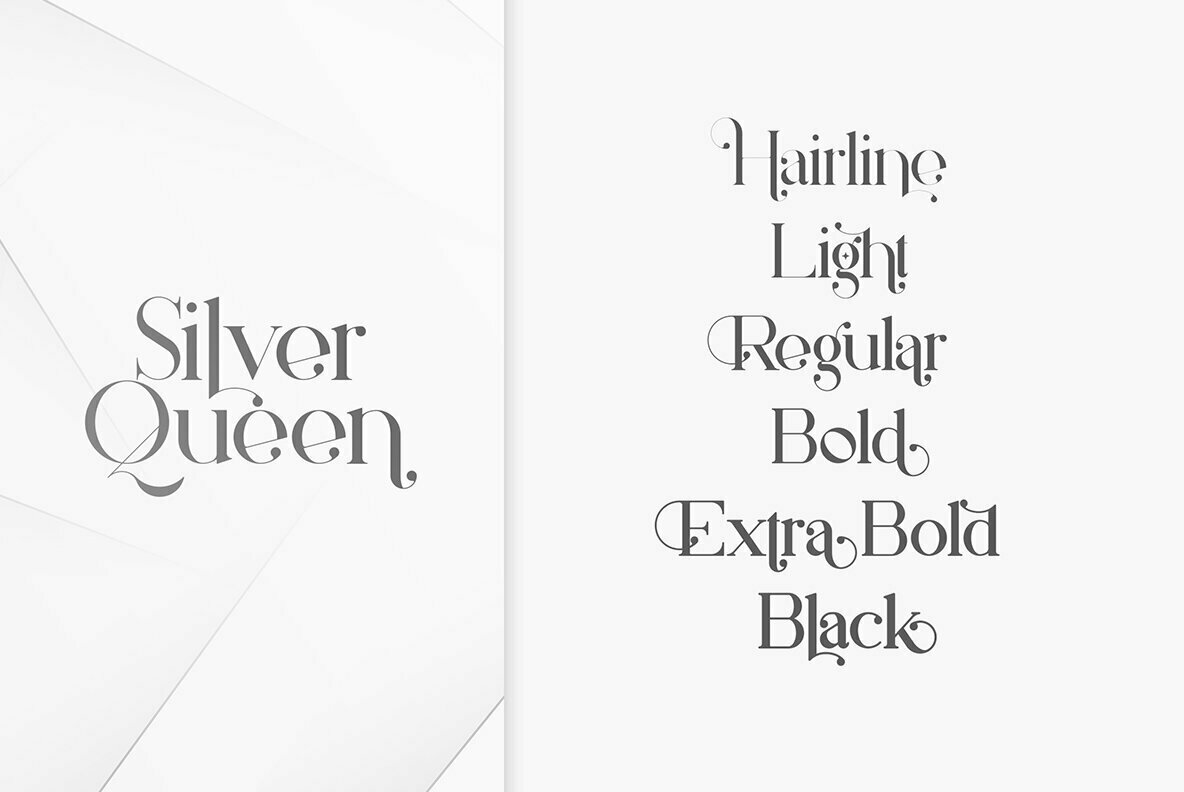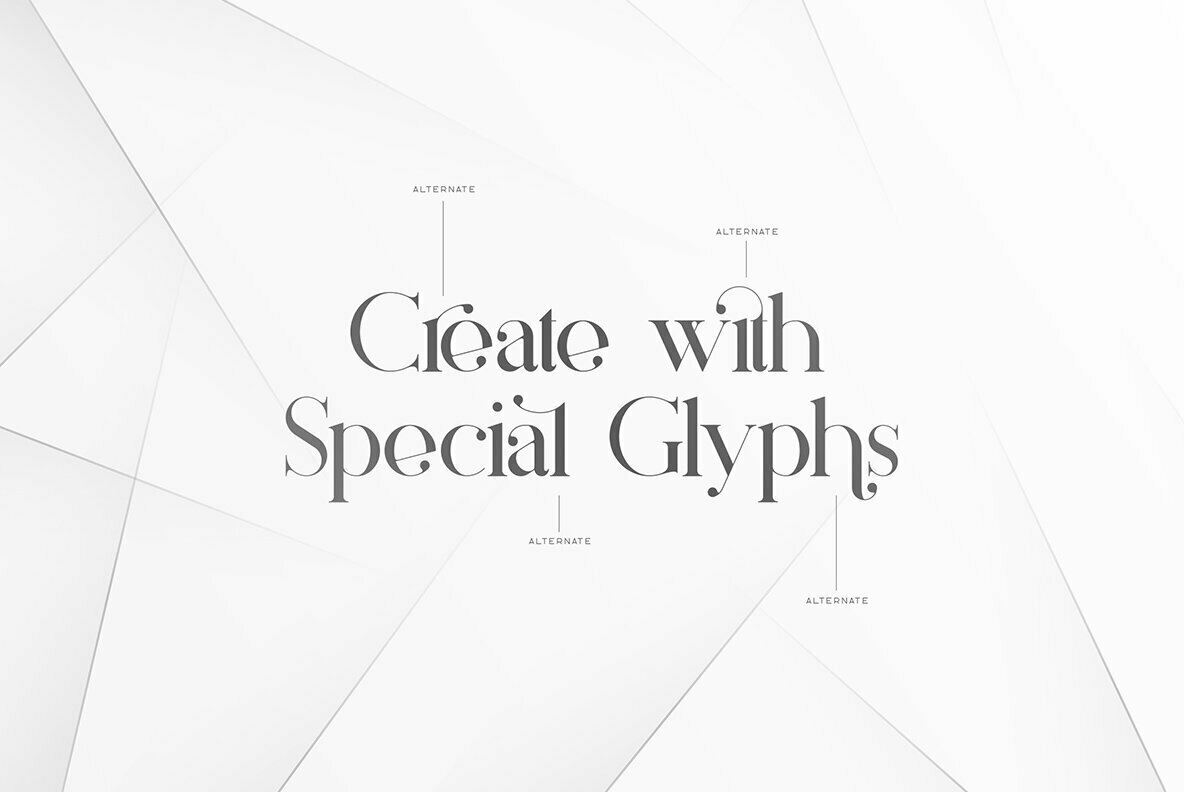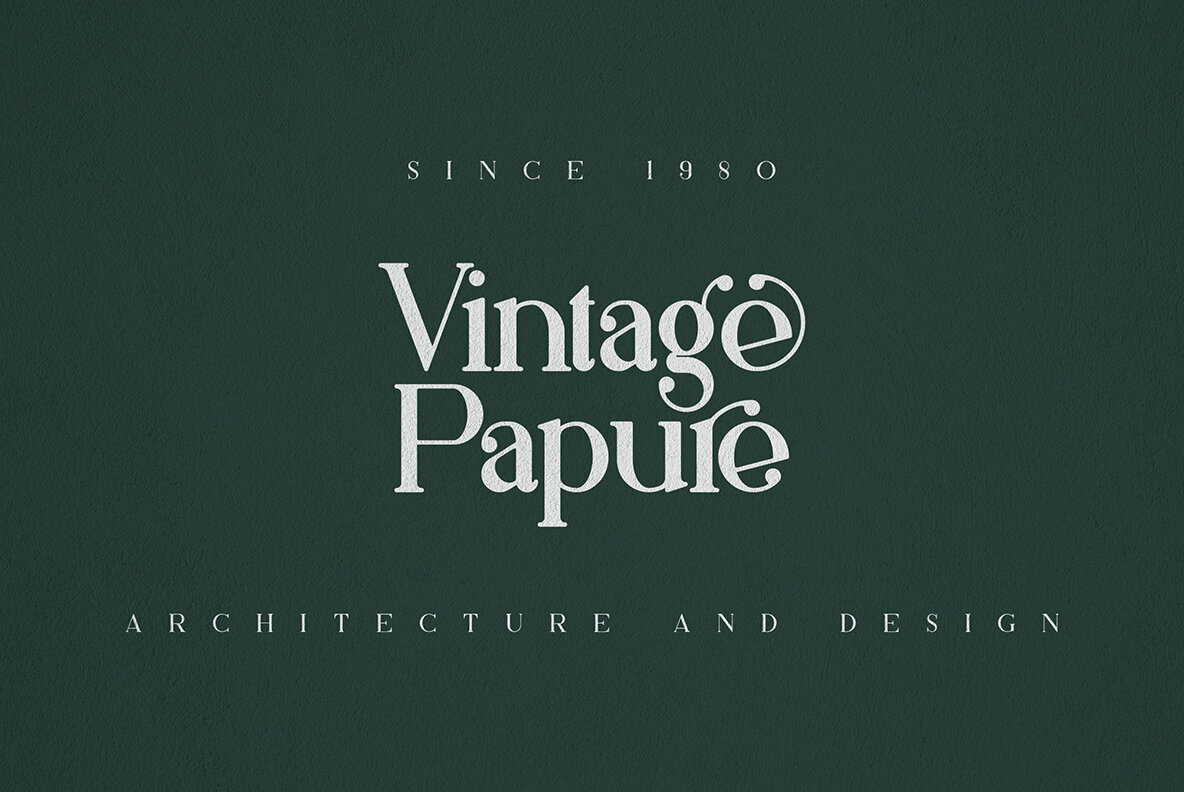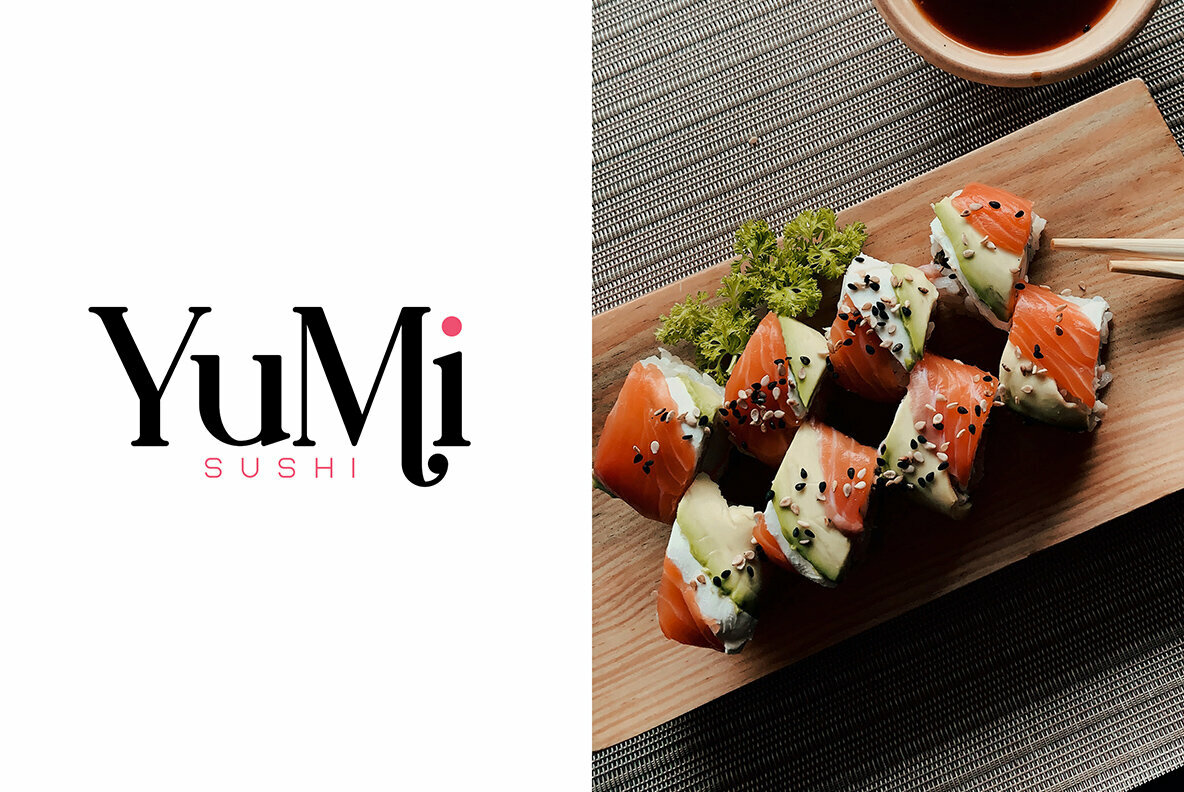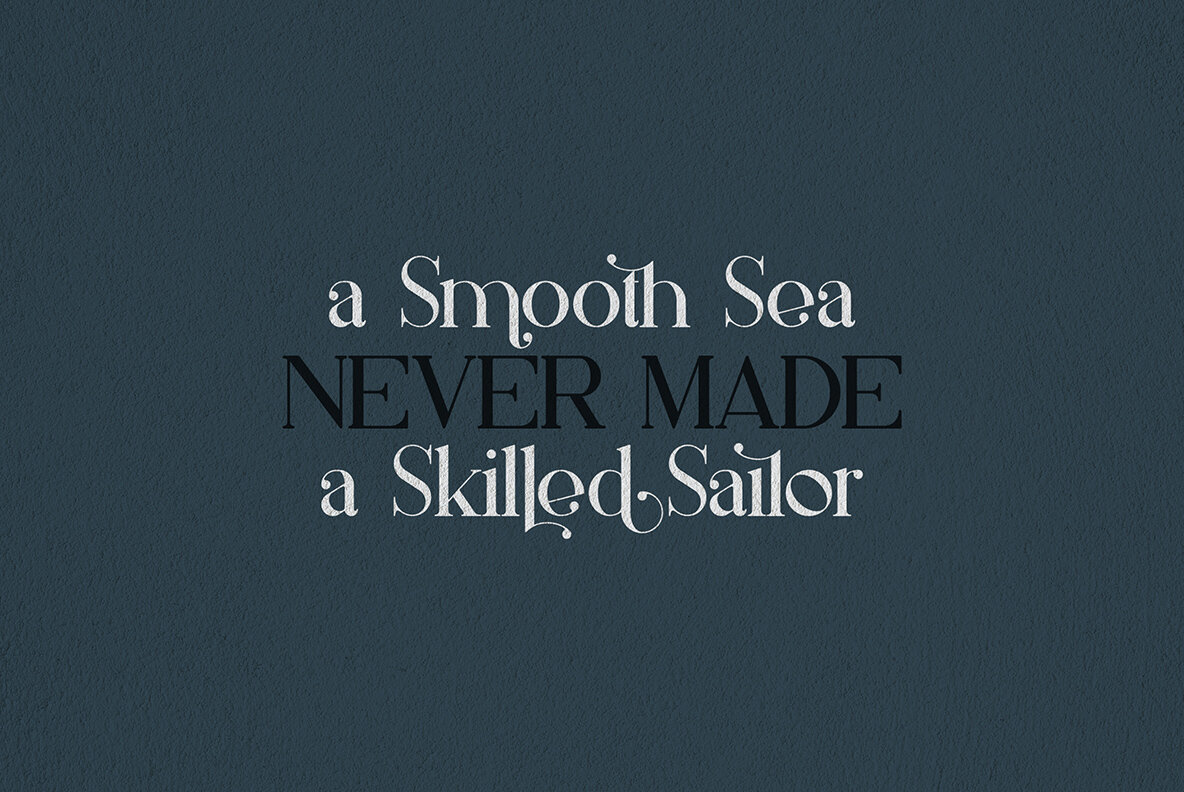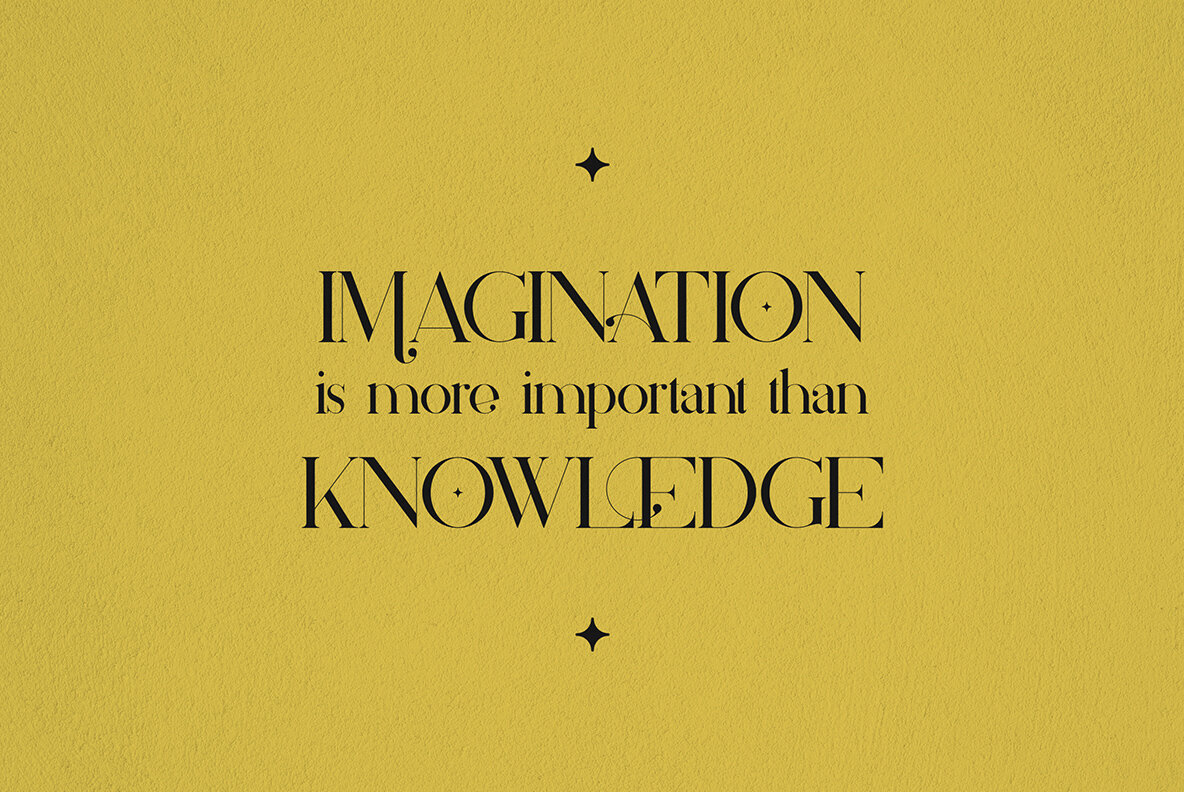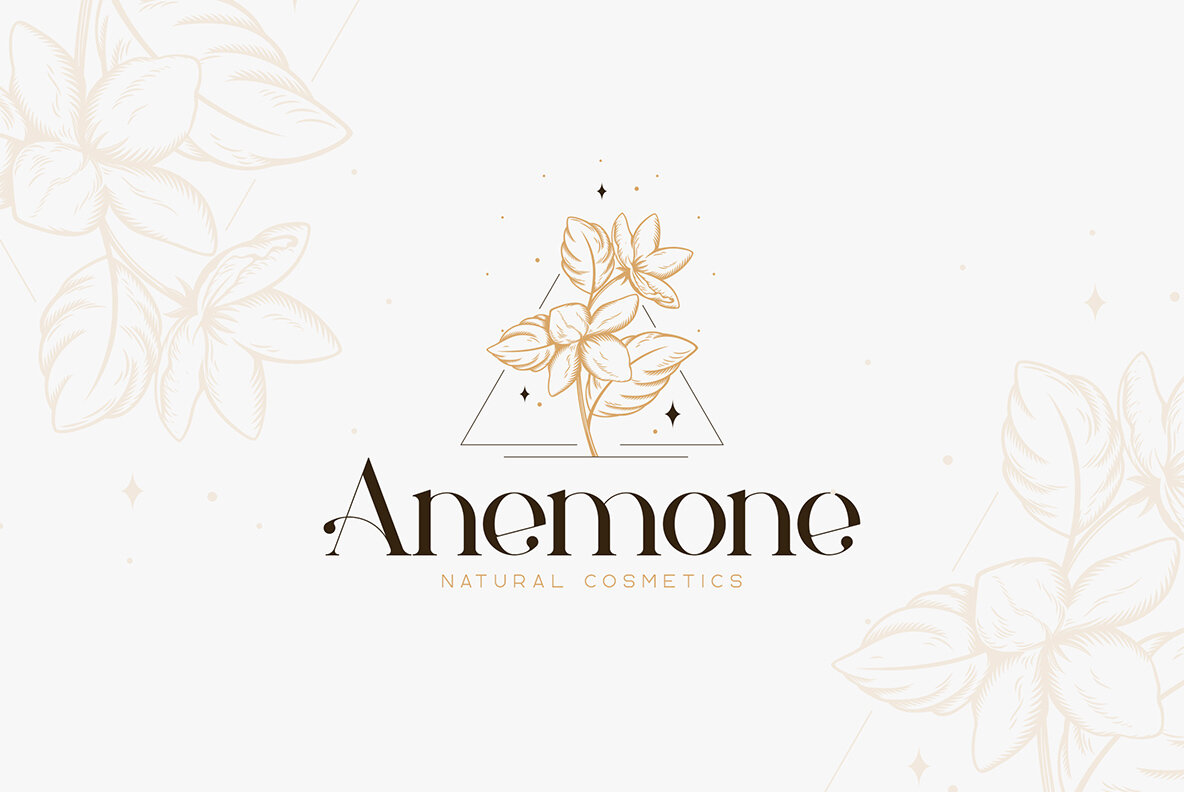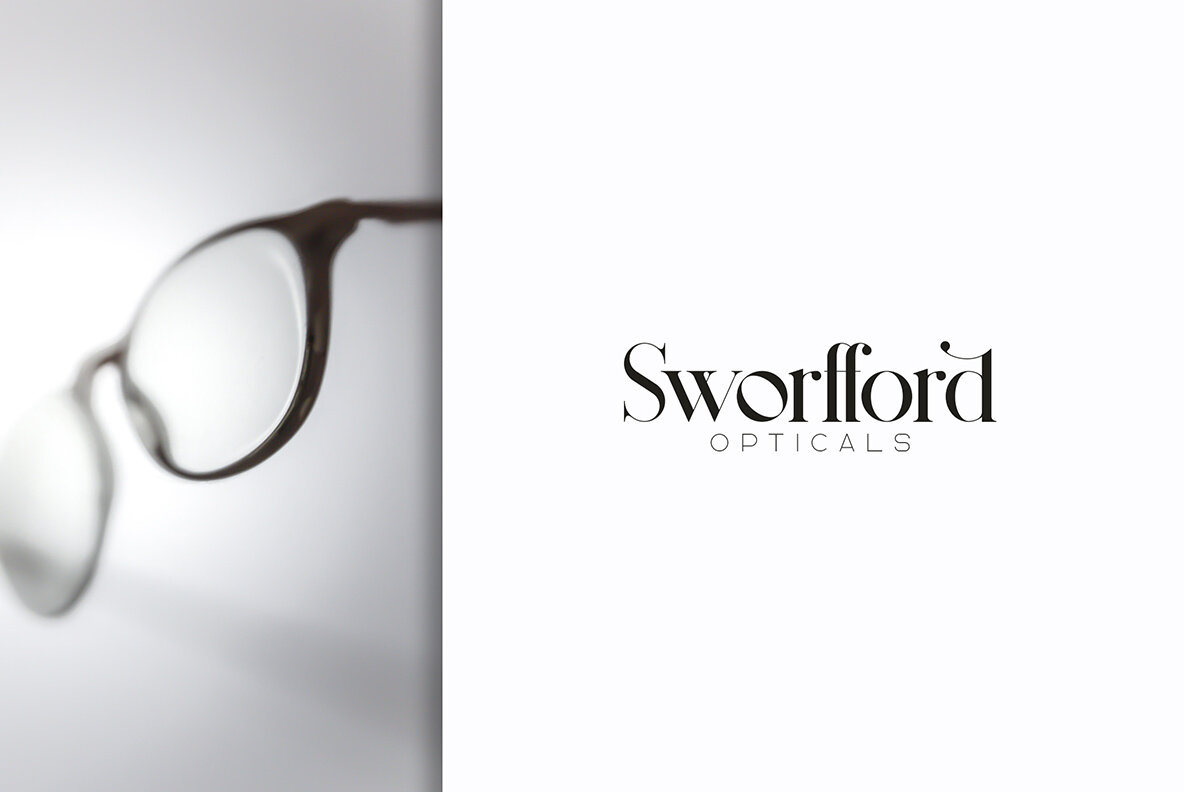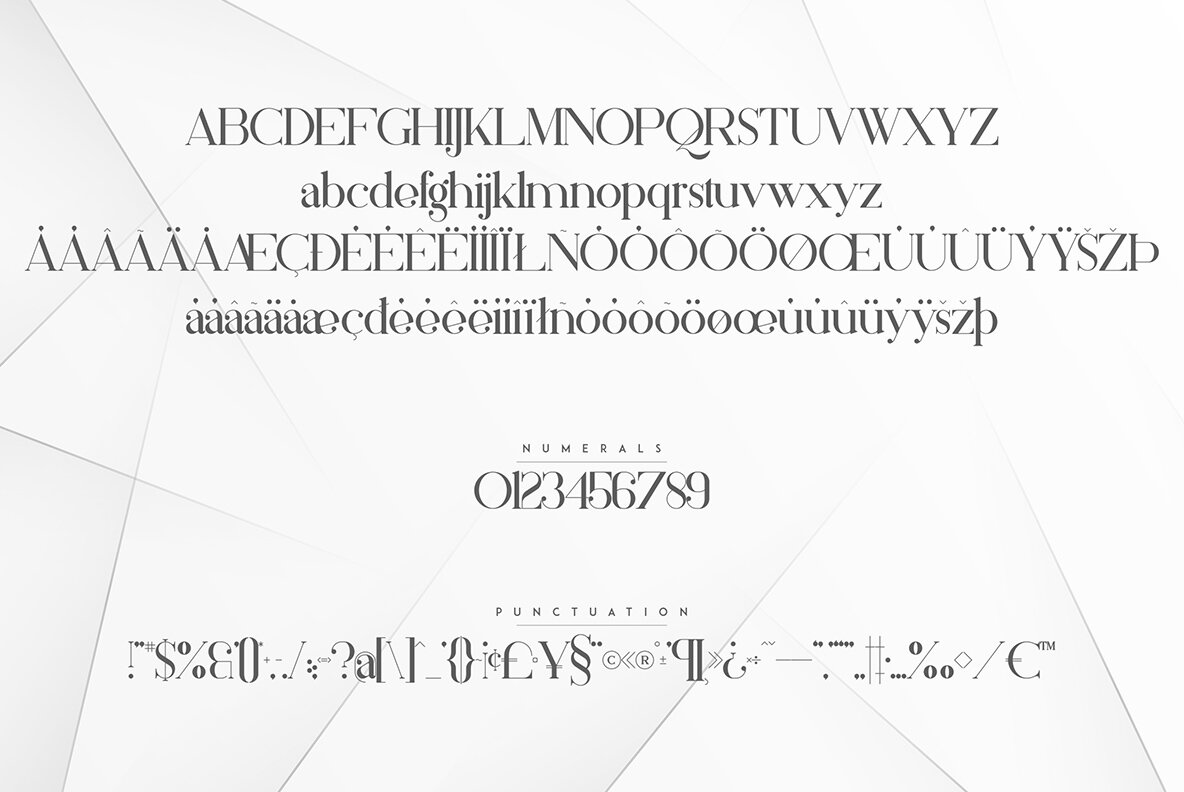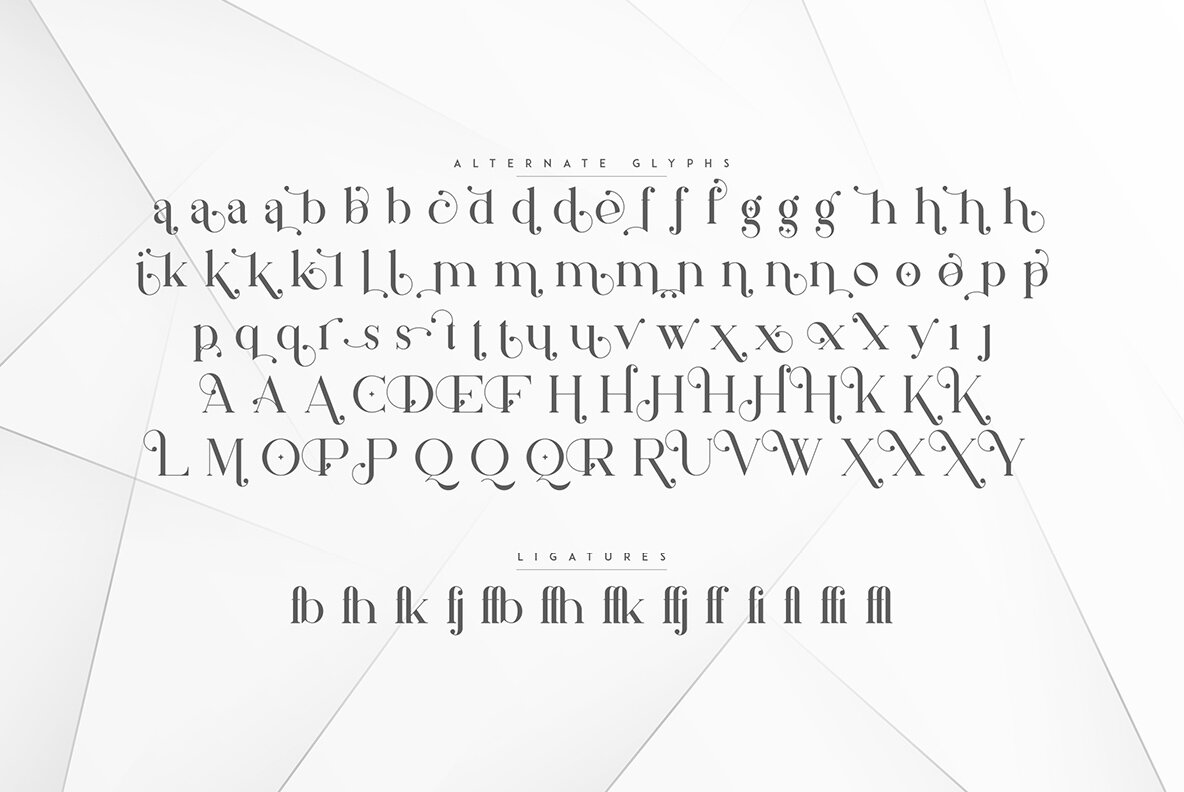
Silver Queen Font
Embark on a journey of sophistication with Silver Queen, a luxury serif typeface designed for versatility and impact. With its six distinct weights, Silver Queen offers both elegant simplicity and vintage charm, embodying an ideal choice for diverse projects, whether large or small. This font excels as a refined branding element, enhances home-ware design, and adds flair to product packaging and magazine headers. Features: Accessing alternate glyphs is seamless in Adobe Creative Suite applications. In InDesign or Illustrator, navigate to Window > Type & Tables > Glyphs. In Photoshop, simply open the Glyphs panel, select an alternate, and double-click to replace it.Silver Queen: Elegant Serif Typeface for Timeless Projects